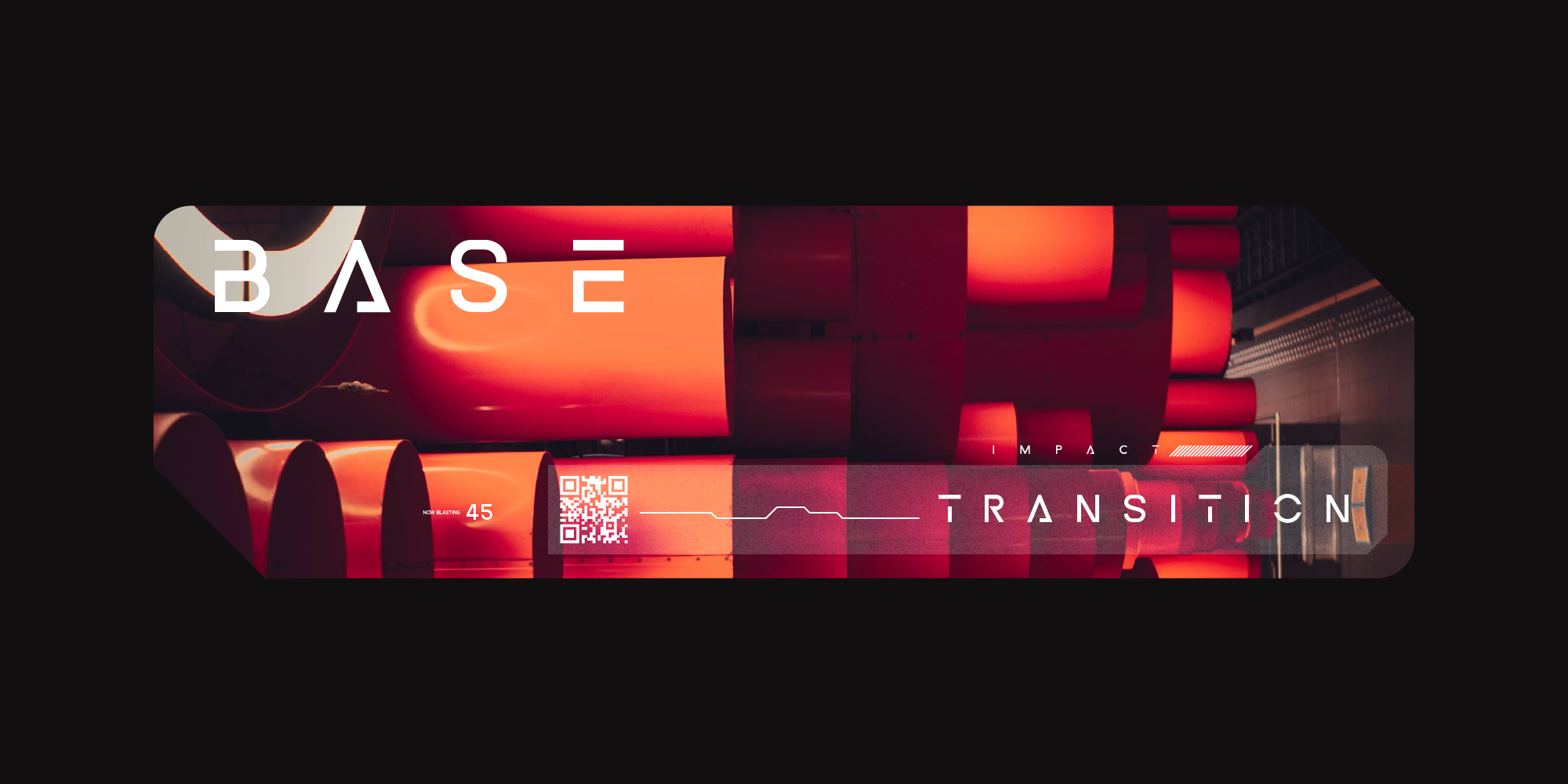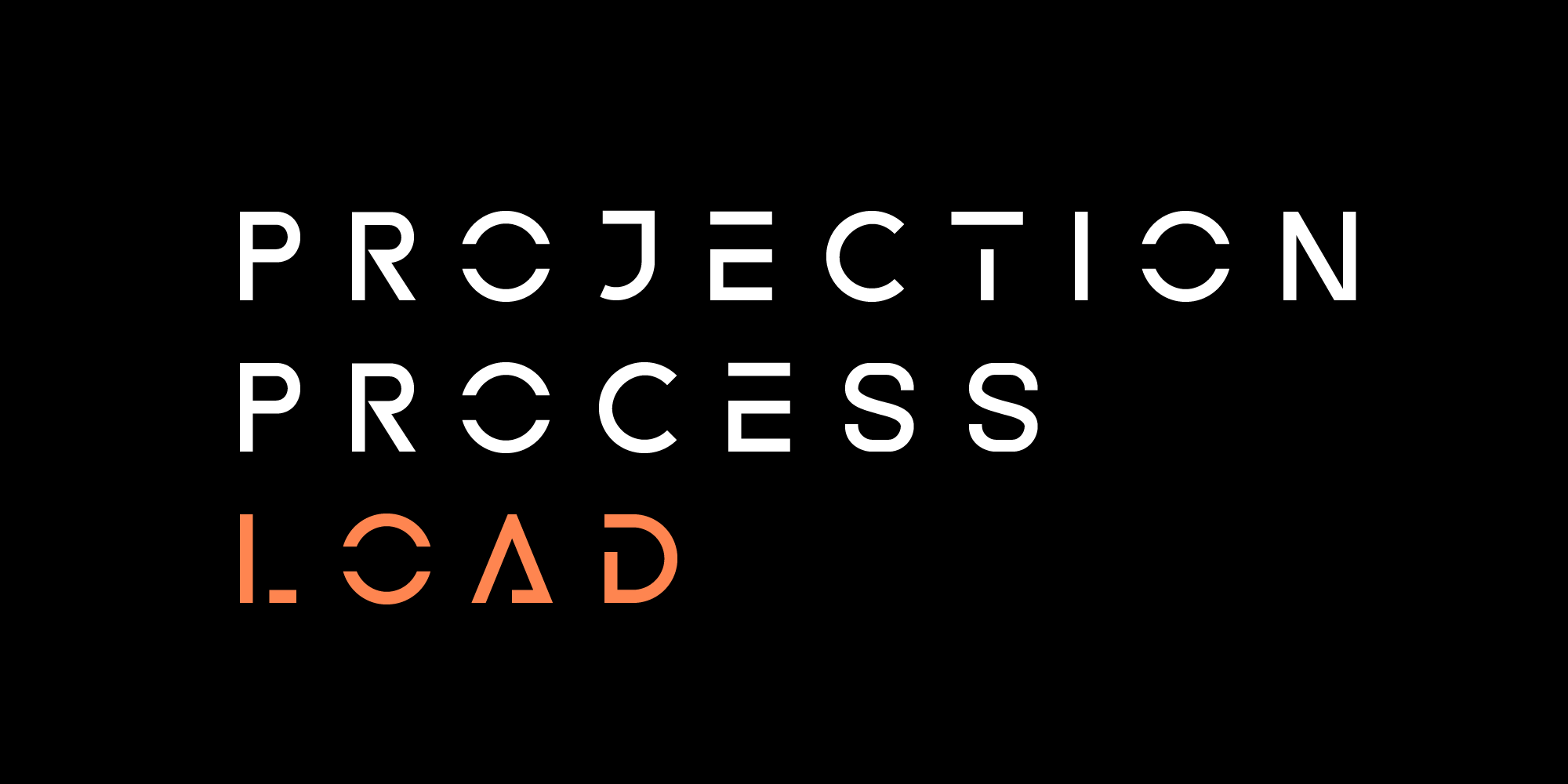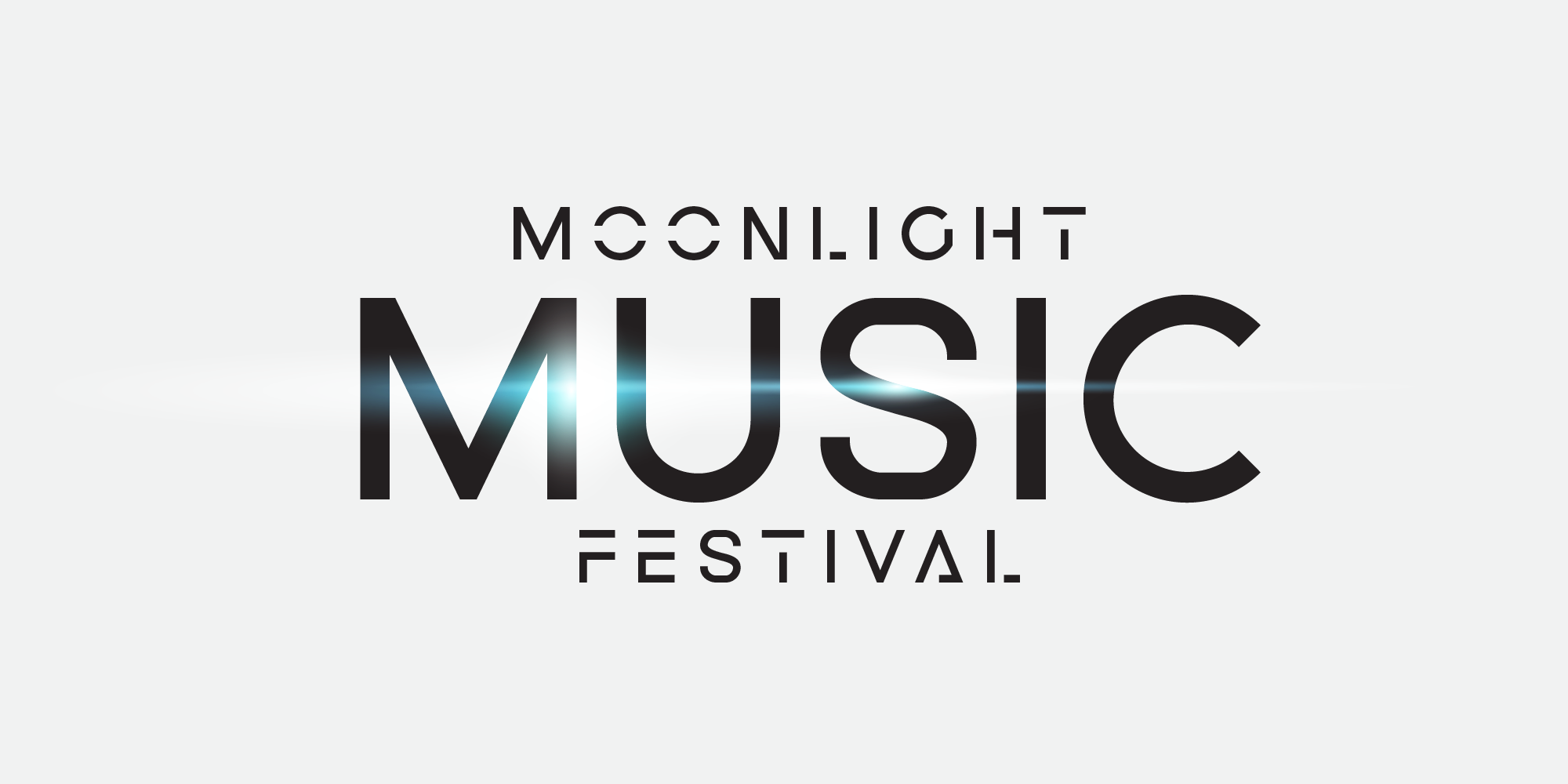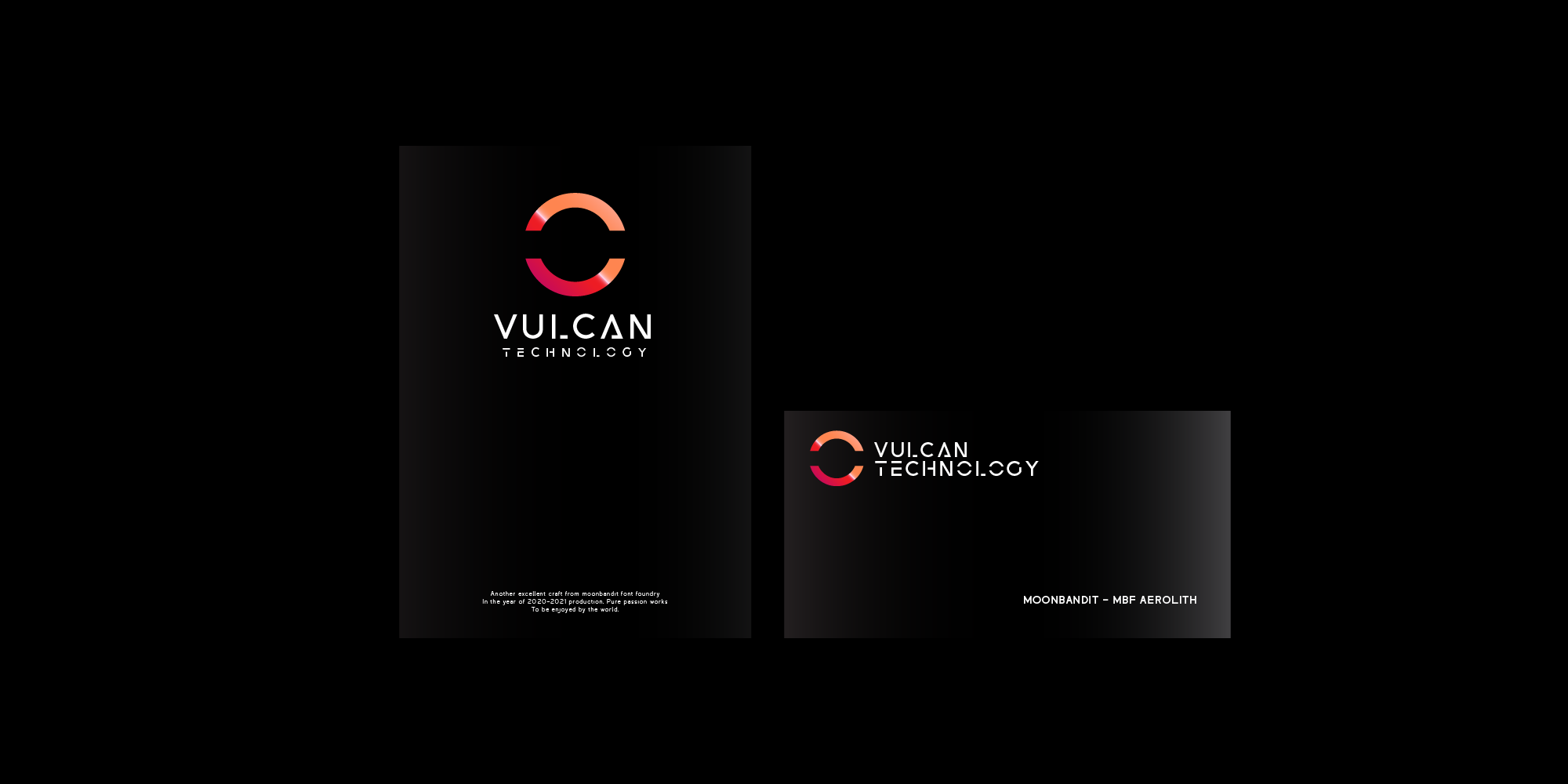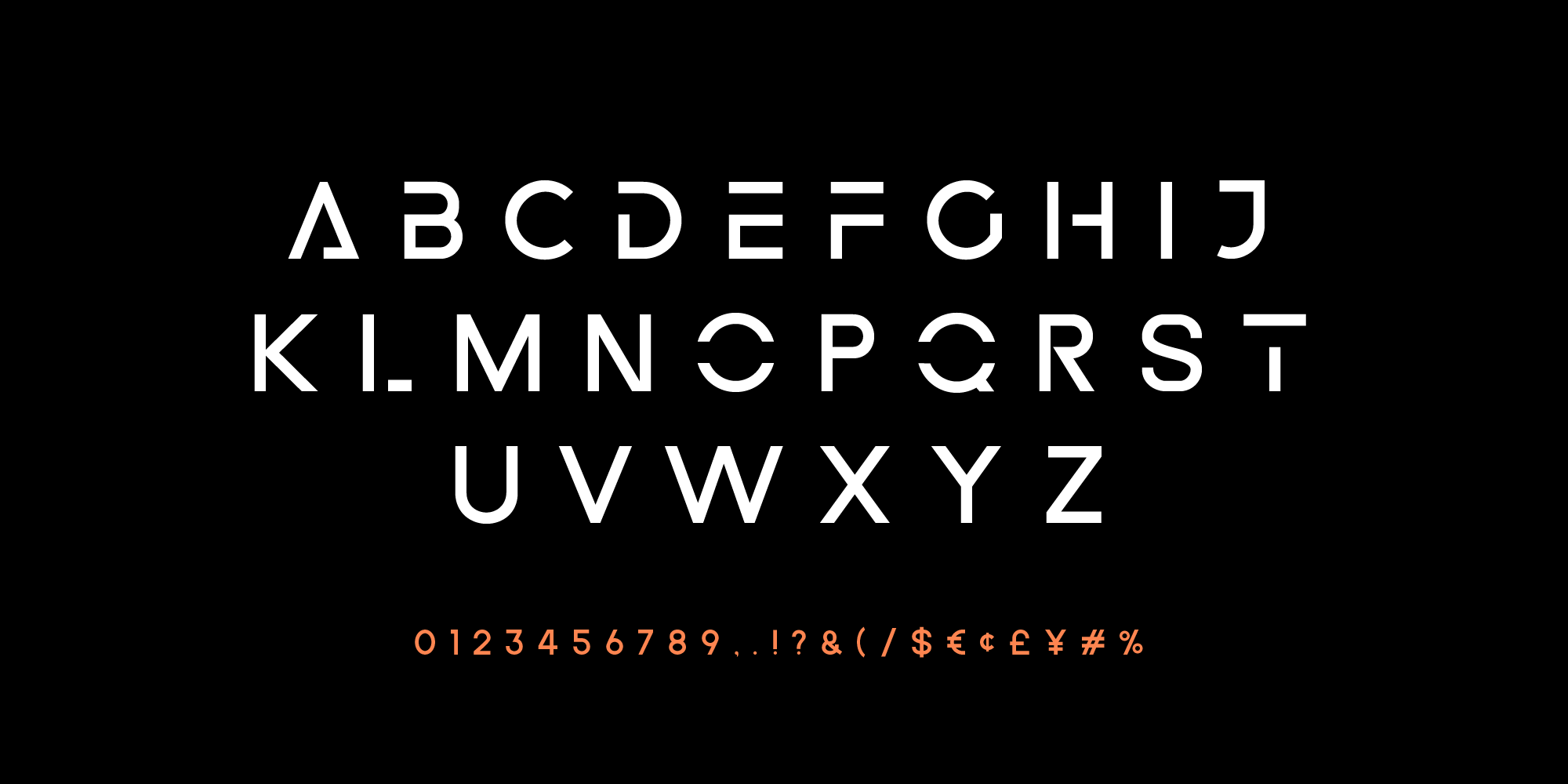
MBF Aerolith
MBF Aerolith is a display font intended for logo usage, branding and titling. This typeface is in the futuristic sci-fi genre. MBF Aerolith emphasize on the modern minimalist feel with it’s sharp and clean design.
Kerning